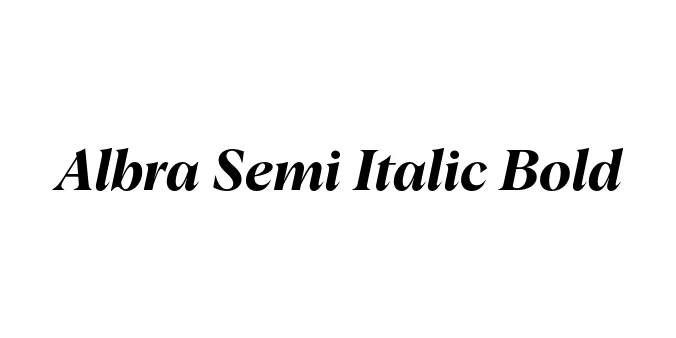
Albra Semi Italic Bold
Designed by BumBumType (Valerio Dell'Edera)
Albra is a sophisticated serif typeface family that blends high-contrast aesthetics with contemporary versatility. Developed by the BumBumType foundry, it features a distinct personality characterized by its elegant curves and sharp terminals. The Semi Italic Bold variant offers a unique middle ground between standard italics and upright forms, providing a rhythmic flow that is both authoritative and stylish.
This typeface is part of a larger collection designed to bridge the gap between editorial tradition and modern digital requirements. Its high legibility and striking visual impact make it a favorite for branding projects, luxury packaging, and high-end typography. The Albra Semi Italic Bold specifically excels in display contexts where a touch of dynamic motion is needed without losing the grounded feel of a bold serif.
Albra Semi Italic Bold Best Uses
Perfect for striking headlines in magazines, books, and digital publications.
Ideal for high-end logo design and brand identities requiring a sophisticated touch.
Great for hero sections and large display text on modern websites.
Adds a premium and authoritative feel to product labels and boxes.
Excellent for grabby, stylish copy in high-fashion or lifestyle campaigns.